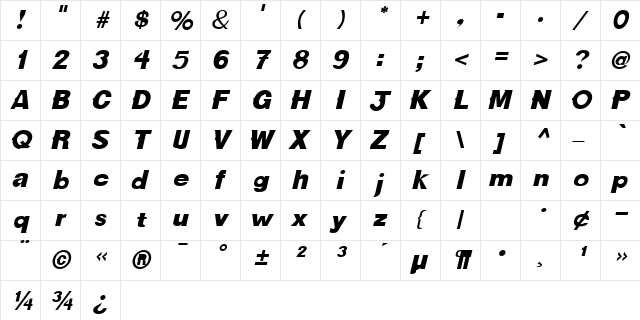
Kaunas Oblique
Design Context for Kaunas Typeface
Kaunas offers clean, dependable letterforms without strong stylistic allegiance, making it a practical choice for designers who need flexibility. The slanted form adds forward momentum and visual energy.